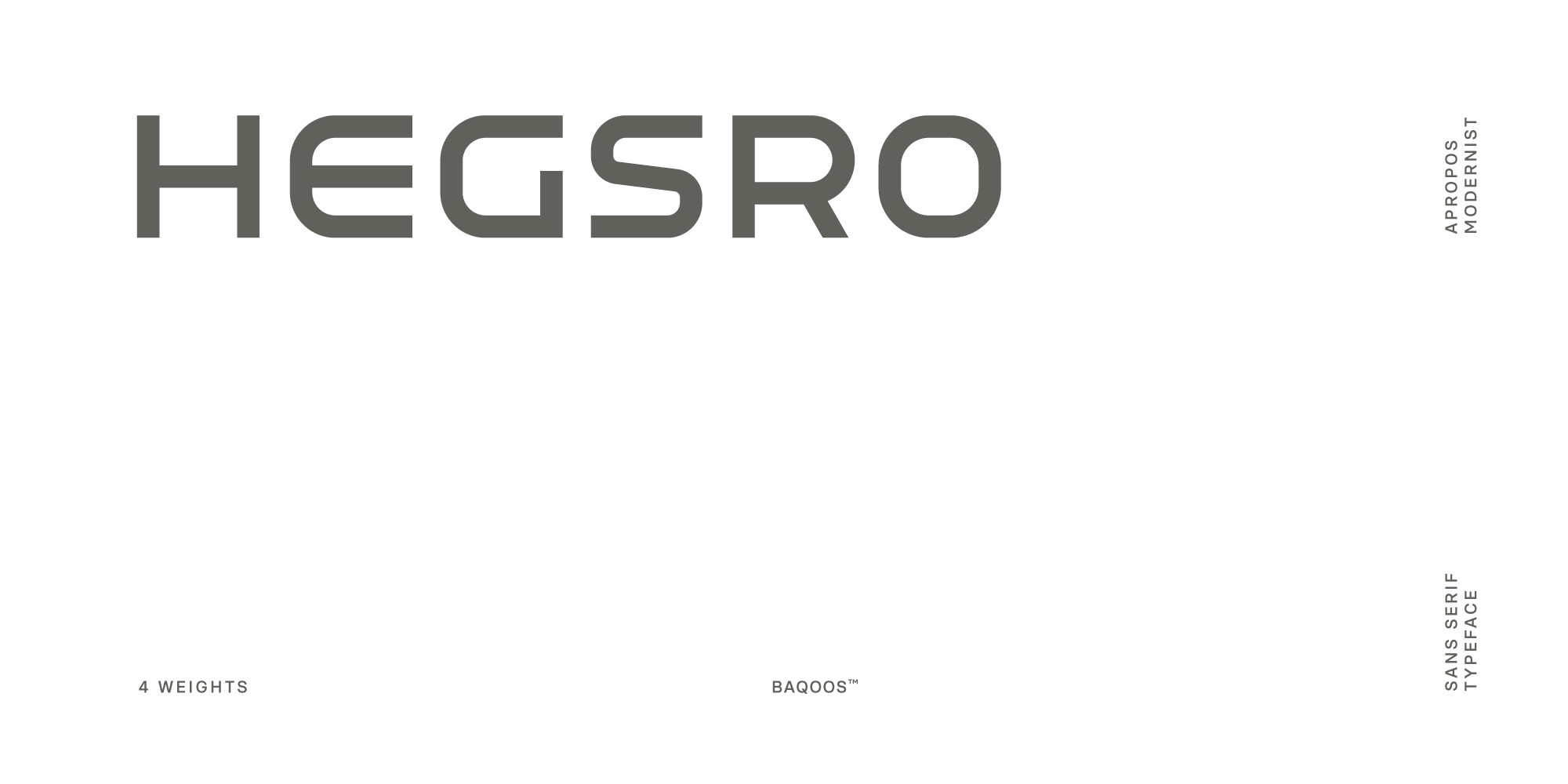
The Hegsro Font excels in various design applications including modern corporate branding, tech industry communications, contemporary web interfaces, professional business presentations, innovative startup logos, sleek mobile applications, digital marketing campaigns, progressive editorial design, clean architectural signage, and forward-thinking brand identities that require precision and contemporary sophistication.
What makes the Hegsro Font exciting is its seamless fusion of geometric precision with subtle humanistic touches that create a perfectly balanced typeface for modern digital and print applications. This typeface demonstrates exceptional craftsmanship through its carefully optimized letterforms that enhance readability while maintaining distinctive character and professional appeal. The font's versatile nature makes it ideal for brands seeking typography that conveys reliability, innovation, and forward-thinking vision without sacrificing approachability or clarity.
The Hegsro Font family typically includes comprehensive weight variations from ultra-light to heavy, featuring corresponding italic styles and extended character sets with multilingual support. These family members often include specialized versions optimized for different applications, such as display headlines, body text, and user interface elements, ensuring optimal performance across diverse design contexts and technical requirements.
Design professionals and technology companies consistently choose Hegsro Font Free Download for projects requiring contemporary typography that performs excellently across digital platforms and traditional media. This typeface delivers outstanding results in corporate communications, user interface design, and brand development where clarity, professionalism, and modern appeal are essential for success. The font's systematic design approach makes it particularly suitable for complex branding systems and multi-platform applications. Download Hegsro Font Free Download today to access this exceptional typeface that combines technical excellence with aesthetic sophistication, creating compelling visual communications that resonate with contemporary audiences while maintaining timeless professional quality.